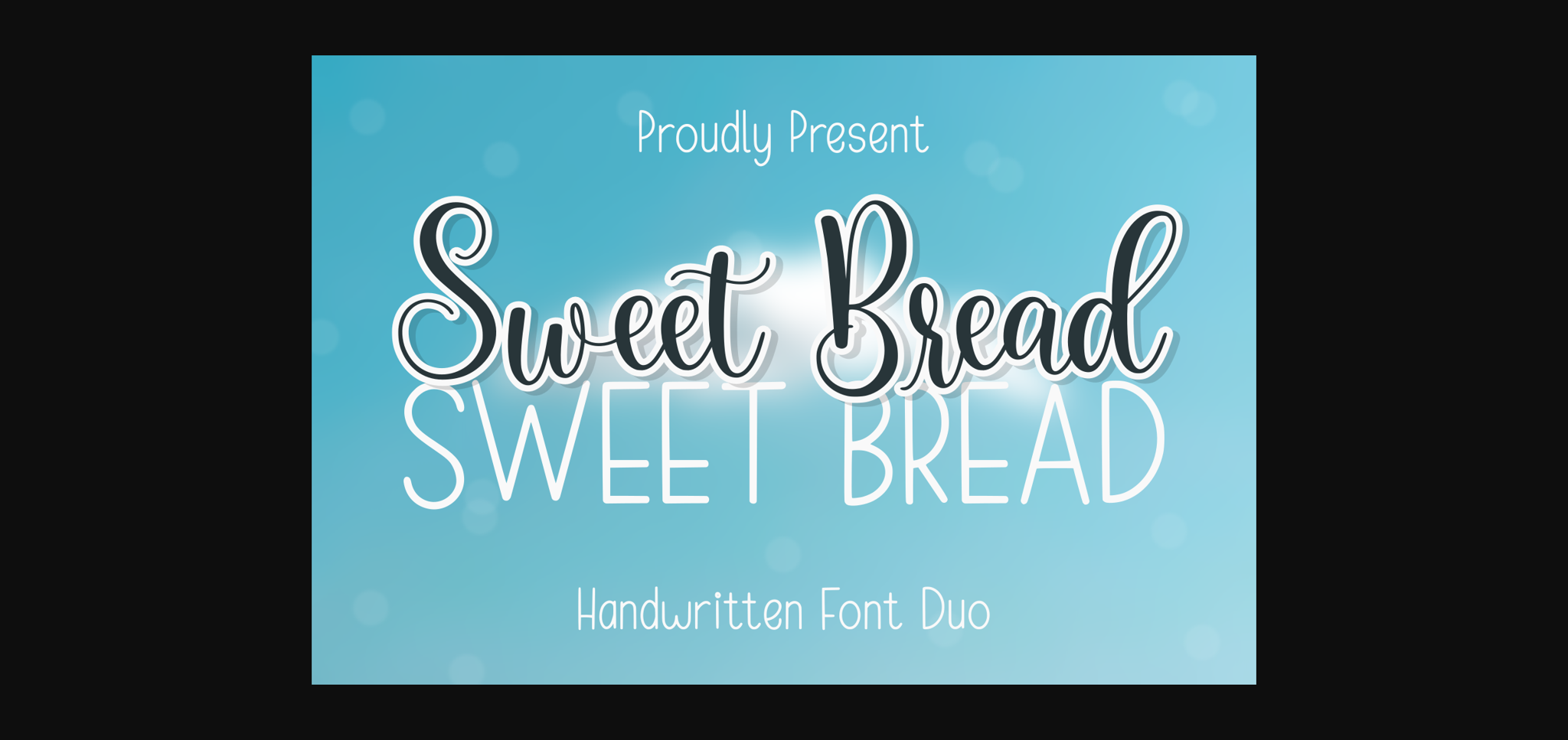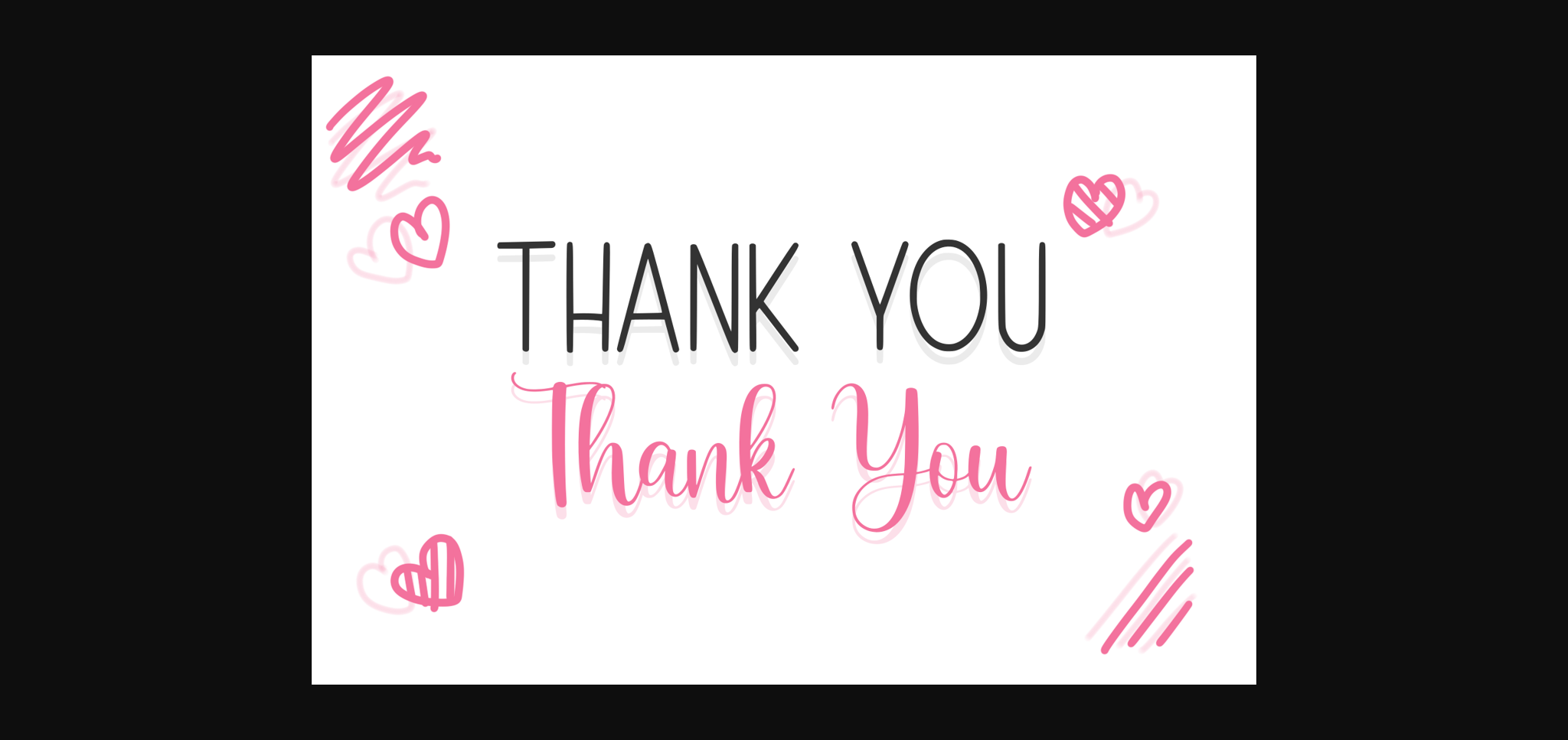
About Sweet Bread Font
Sweet Bread is a delightful font duo featuring a harmonious blend of a script and a sans-serif font. The script font exudes charm with its elegant, flowing characters, while the sans-serif font provides a clean and modern touch. Together, they create a versatile combination that adds sweetness and style to your designs. Perfect for a variety of projects, “Sweet Bread” is an easy choice when you want a simple yet sophisticated look for your text.